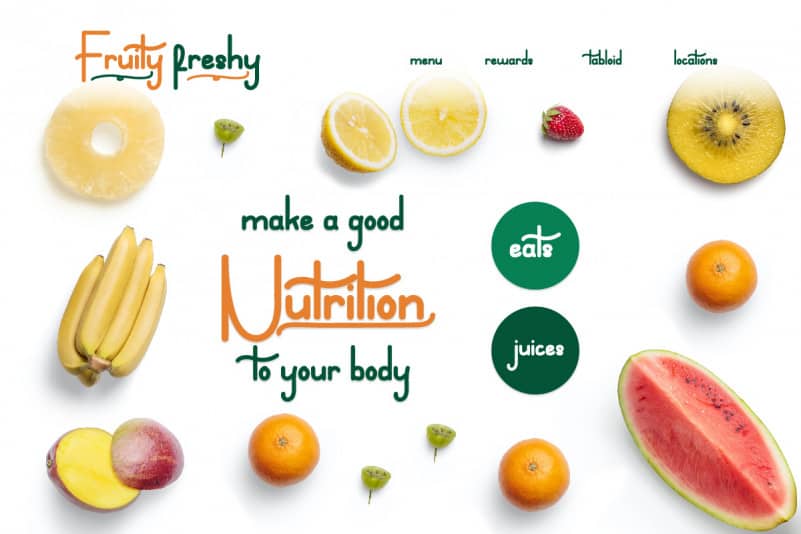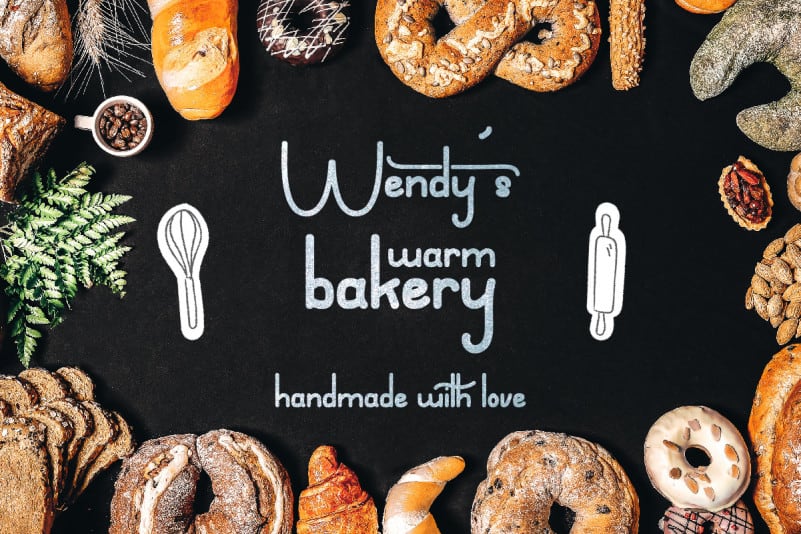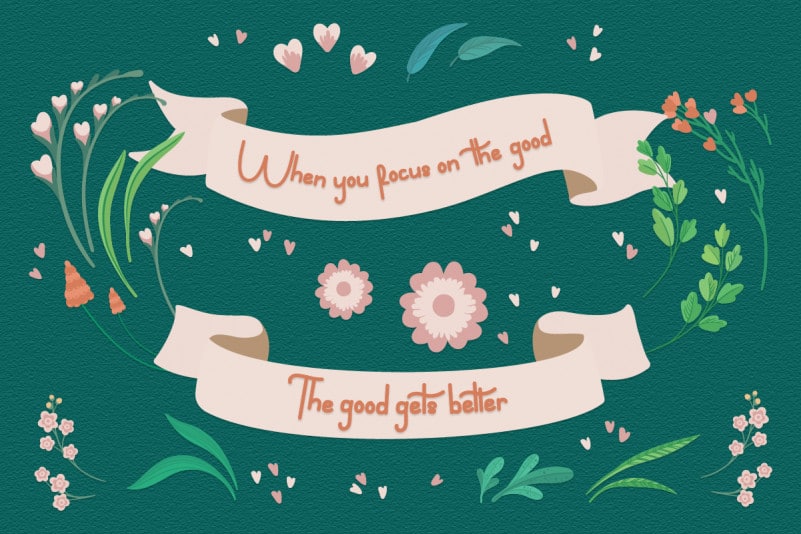
Brondown Various Handwritten Font
Brondown Various Handwritten Font includes full set of Characters, Numerals and Punctuation. Also it contains ligatures to make it flowless that add more aesthetic fonts to perfect your extraordinary project.
This font is perfect for many projects including : Flyer, headings, logos, branding design, quotes, products, cards, stationery, invitations and more! Be a unique in a minute and start creating today!